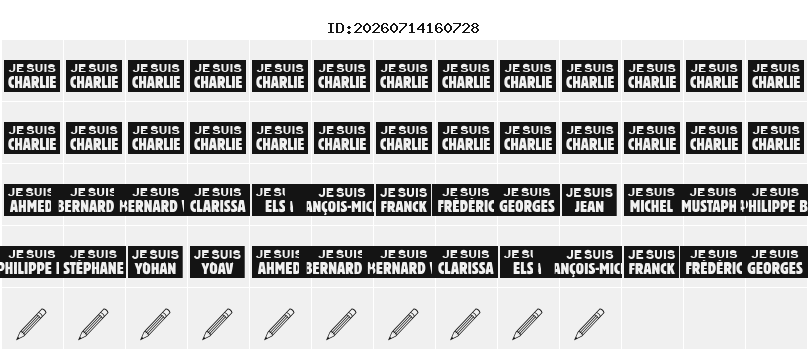
• Font Name: JE SUIS CHARLIE
• Description: In Memory of the victims between 7 and 9 January 2015 in Paris
JE SUIS CHARLIE.ttf is a modern, elegant sans-serif font designed for ultimate readability and visual harmony. Perfect for branding, headlines, web design, and print materials.